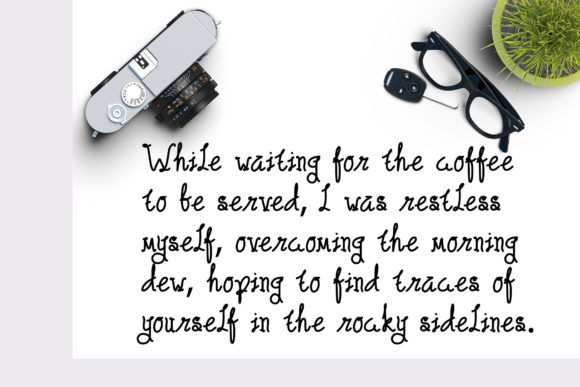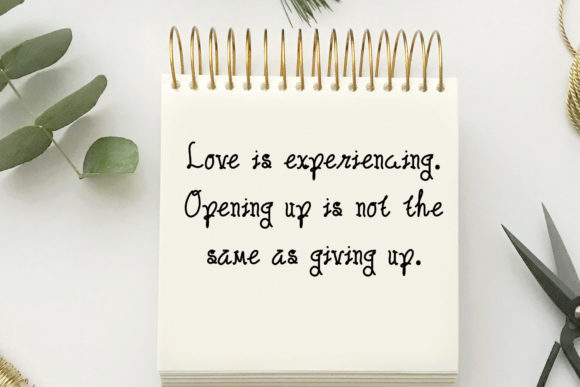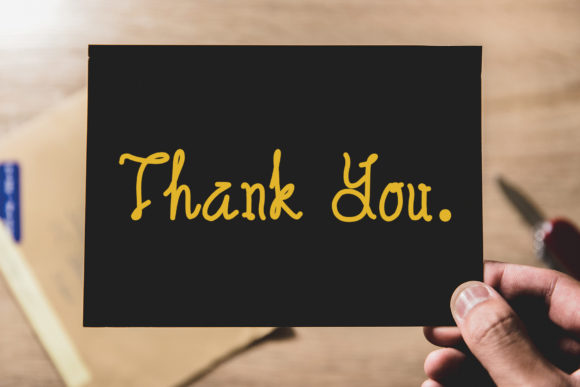
About Banana Font
Banana is indeed a whimsical script font with a relaxed theme that exudes a lovely and playful style. Its unique and charming design makes it a valuable asset to your font library, as it has the potential to enhance any creation.
The relaxed and whimsical nature of Banana makes it a versatile font that can be used across a wide range of topics and projects. Whether you’re designing a logo, creating branding materials, crafting invitations, or working on social media graphics, Banana adds a touch of fun and personality to your typography.
The flowing and curvy letterforms of Banana create a sense of movement and playfulness, giving your designs a lively and dynamic feel. Its relaxed theme makes it particularly suitable for projects that aim to convey a casual and friendly vibe.
With its lovely style and attention to detail, Banana brings a touch of whimsy to your designs. The unique characters and decorative elements of the font allow for creative and eye-catching compositions. Additionally, Banana’s versatility extends to various typographic applications, allowing you to experiment with lettering, titles, headlines, and more.
In summary, Banana is a whimsical script font with a relaxed theme that adds a lovely and playful style to any design. Its versatility makes it a valuable asset for a wide range of projects, and its unique characters and decorative elements provide creative opportunities for eye-catching compositions. Whether you’re designing a logo, creating invitations, or working on social media graphics, Banana is a font that can elevate your creations and bring a touch of whimsy to your typography.